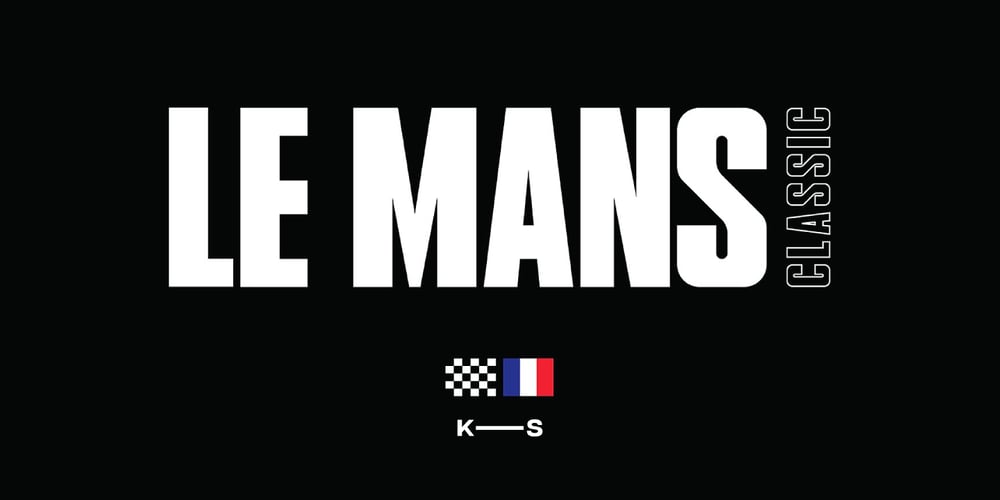
Le Mans Classic Font Family was designed by Jake Keijzers and published by Kazer Studio. Le Mans Classic contains 2 styles and family package options. LE MANS – CLASSIC is a font inspired by vintage motorsport racing. In particular, advertising posters from the 70’s. This time period was important as it showcased not only the cars that changed but also the illustrative styles & typography.Features: Offered in 2 Styles – Regular & Compressed Extensive Language support Specialised Kerning on all character combinations Designed by KAZER STUDIO